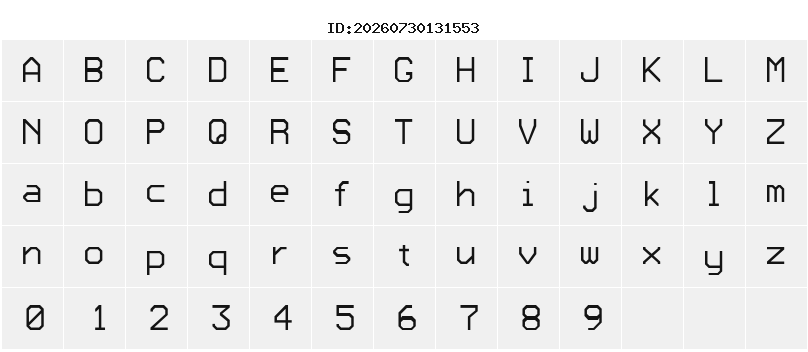
KADO Preview
About KADO.ttf
KADO.ttf is a modern, elegant sans-serif font designed for ultimate readability and visual harmony. Perfect for branding, headlines, web design, and print materials.